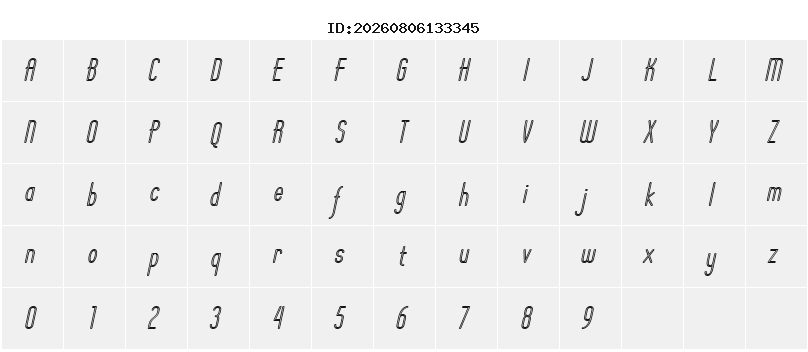
• Font Name: Operator Nine BTN Inline
Operator Nine BTN Inline.ttf is a modern, elegant sans-serif font designed for ultimate readability and visual harmony. Perfect for branding, headlines, web design, and print materials.